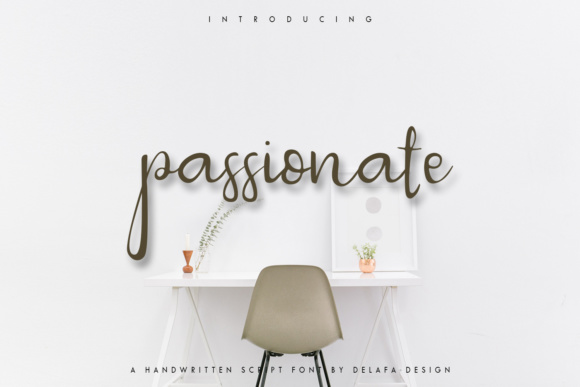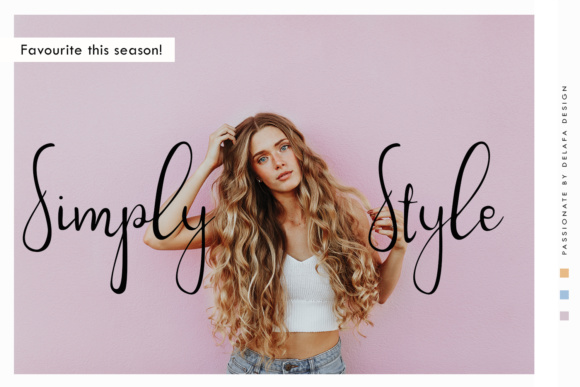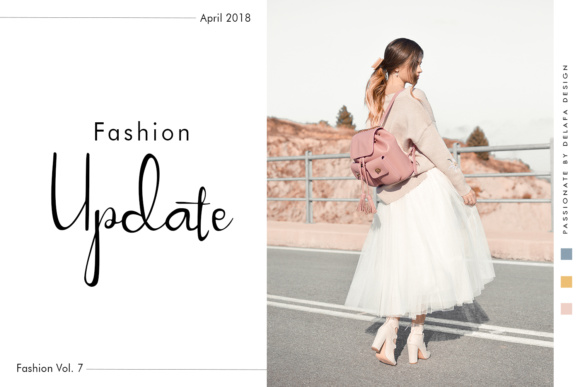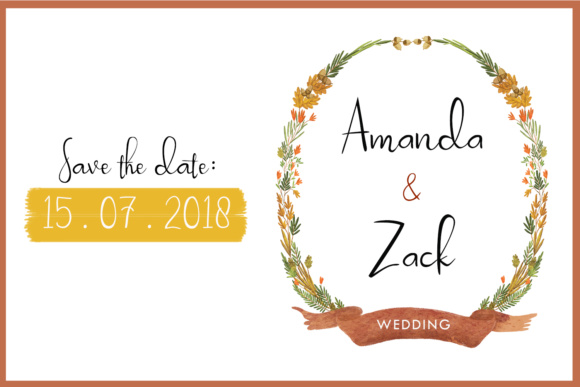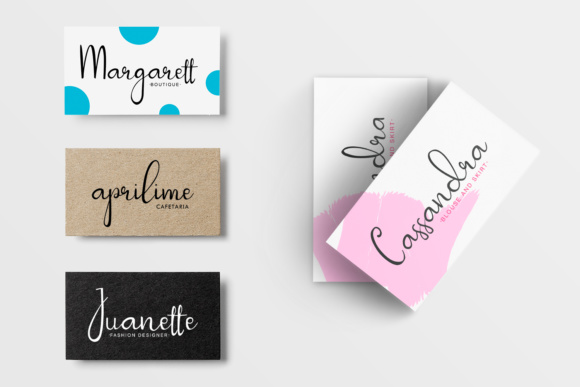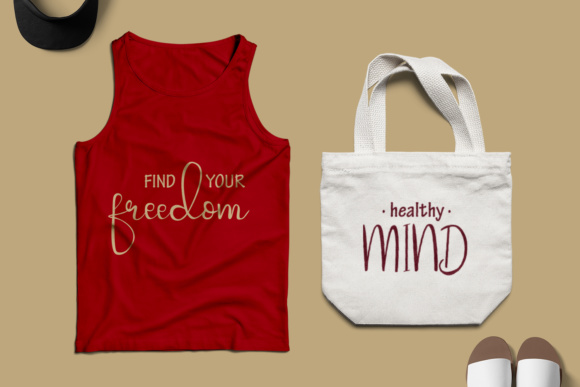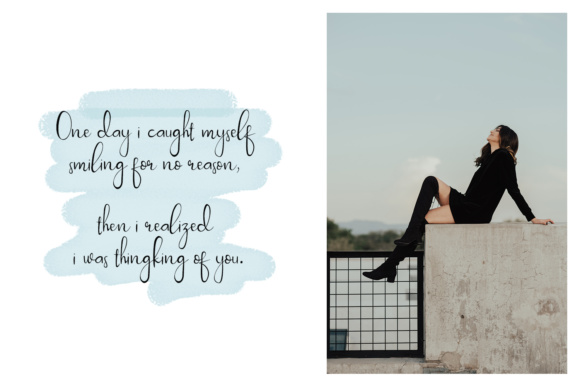
Passionate Font
Passionate is a stylish, fashionable handwritten script font.
It’s the perfect font for branding, magazines, social media, advertisements, special event invites, and much more.